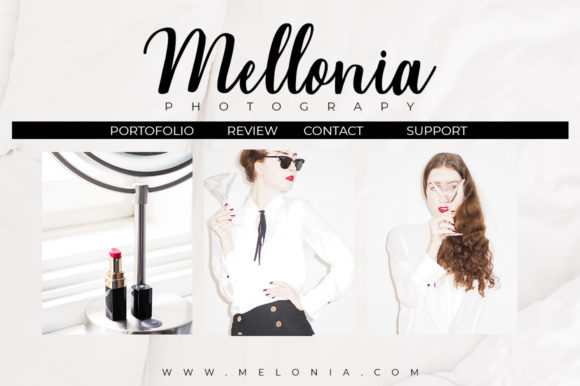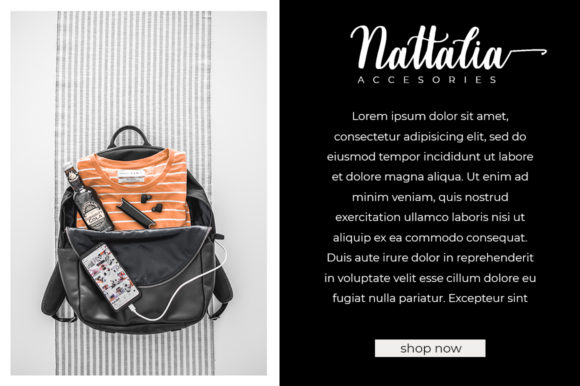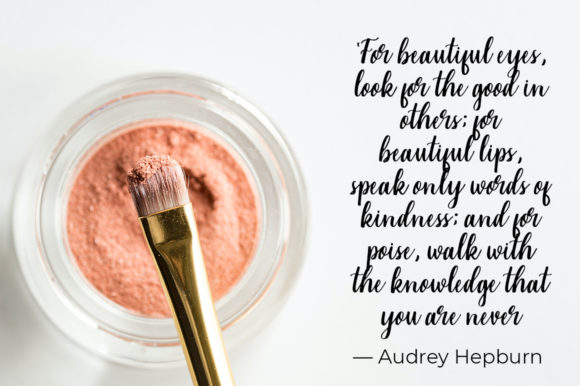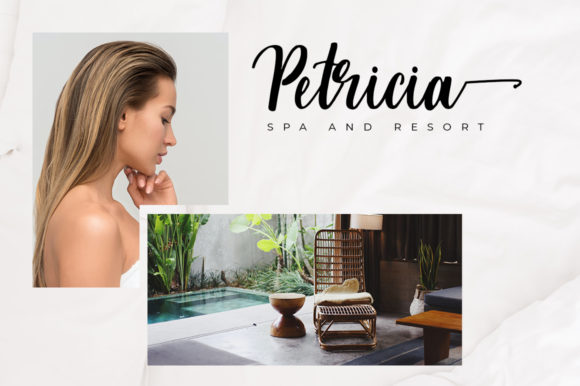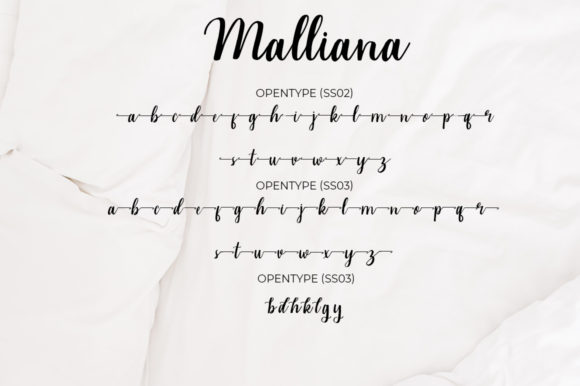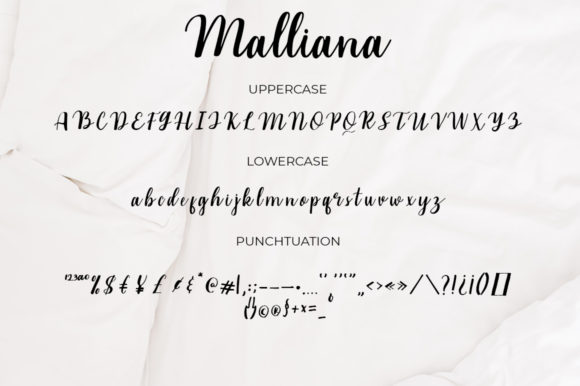
Introduction to Malliana Font
Have you ever been working on a creative project and stumbled upon the perfect font that elevates your design to the next level? For designers, finding that one special font can be a game-changer. It’s like discovering a hidden gem that adds a touch of elegance to your work. And for those who have been searching for a font that embodies both charm and sophistication, we’re excited to introduce you to the stunning Malliana Font.
This beautiful font is perfect for designers who want to add a handwritten touch to their designs, from wedding invitations to business cards. With its high-quality design and transparent background, it’s a valuable resource for any creative project. And the best part? The Malliana Font is PUA encoded, making it easy to access all of its glyphs and swashes.
Key Features of Malliana Font
- High-quality design resource ideal for creative projects and presentations.
- Includes multiple font styles, allowing for versatility in your design.
- Perfect for designers and artists working on creative projects, offering a unique and elegant touch.
Honest Review: Malliana Font
As a designer, I’ve come across many design resources, but the Malliana Font has left a lasting impression. This elegant script font is perfect for any creative project that requires a touch of sophistication.
I was blown away by the high quality of this font, with its smooth lines and flowing curves. The transparent background makes it easy to use on any background, and the vector format ensures that it scales beautifully for any design need.
- ✨ Elegant script style that adds a touch of sophistication to any design
- ✨ High quality and smooth lines that make it perfect for print and digital projects
- ✨ Transparent background that makes it easy to use on any background
⚠️ One limitation of this font is that it’s only available in a limited number of languages, which may be a concern for designers working on projects that require multilingual support.
Overall, I’m thoroughly impressed with the Malliana Font. Its high quality and elegant design make it a valuable addition to any designer’s toolkit. Whether you’re working on a creative project or just need a font for a specific design need, the Malliana Font is definitely worth checking out.
The Malliana Font is suitable for various creative projects, including digital invitations, social media graphics, and blog posts. Its high-quality design makes it an excellent addition to any design resource collection.
Is the Malliana Font suitable for print or digital projects?
The Malliana Font is suitable for both print and digital projects. Its high-quality design makes it ideal for print materials, such as business cards, brochures, and posters. Additionally, the font’s transparent background and scalable design make it perfect for digital projects, including web design, social media, and presentations.